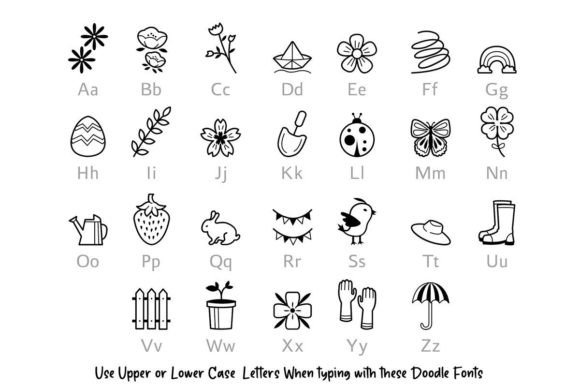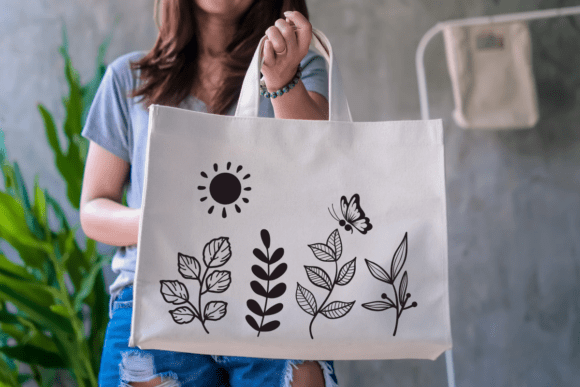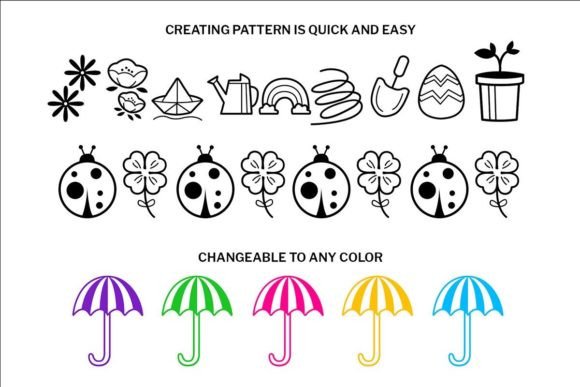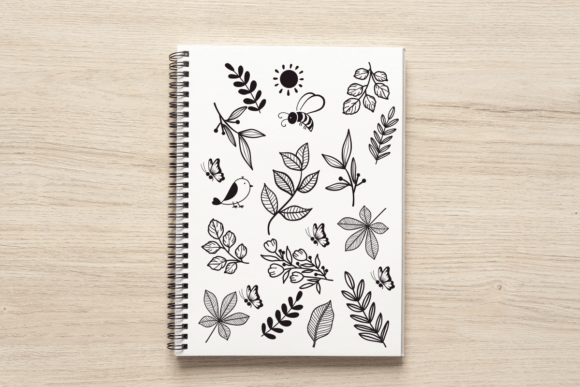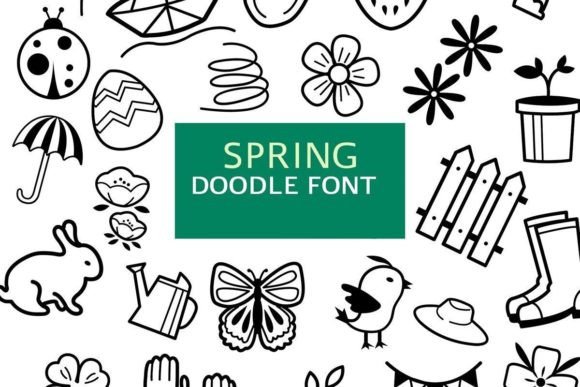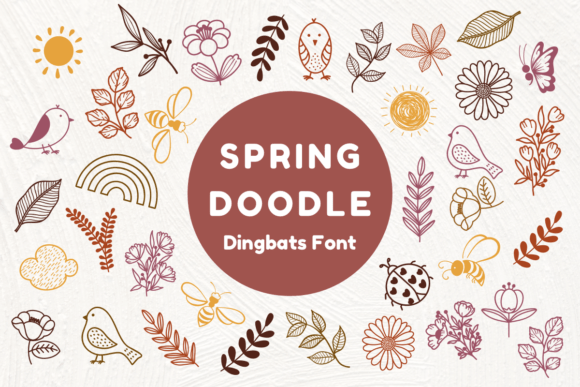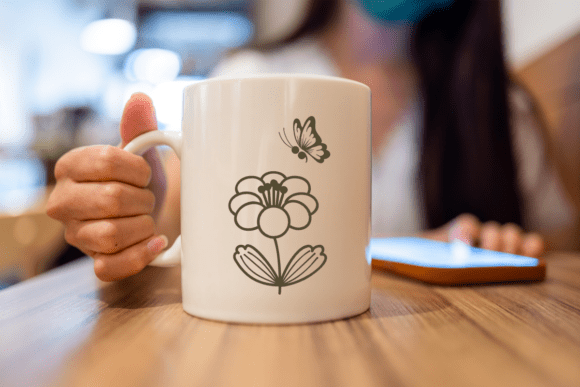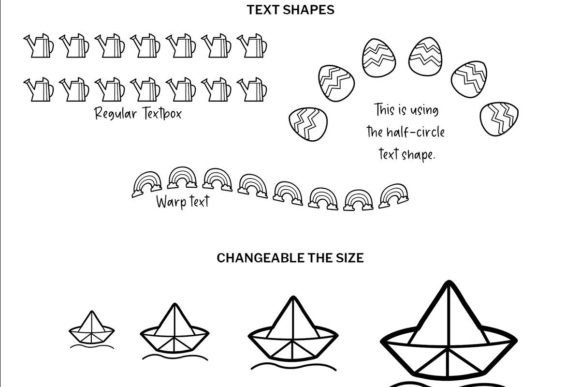
Spring Doodle Font: A Cute Handwritten Font for Cricut & Crafts
About the Spring Doodle Font
Explore the possibilities with Spring Doodle Font, a font that offers both beauty and functionality. Spring Doodle is a dingbats font with a warm theme. This font can enhance your creative projects such as wedding invitations, DIY, crafts, decorations, logos, and many other creative ideas.
Spring Doodle Font Usage Examples
Spring Doodle Font Example